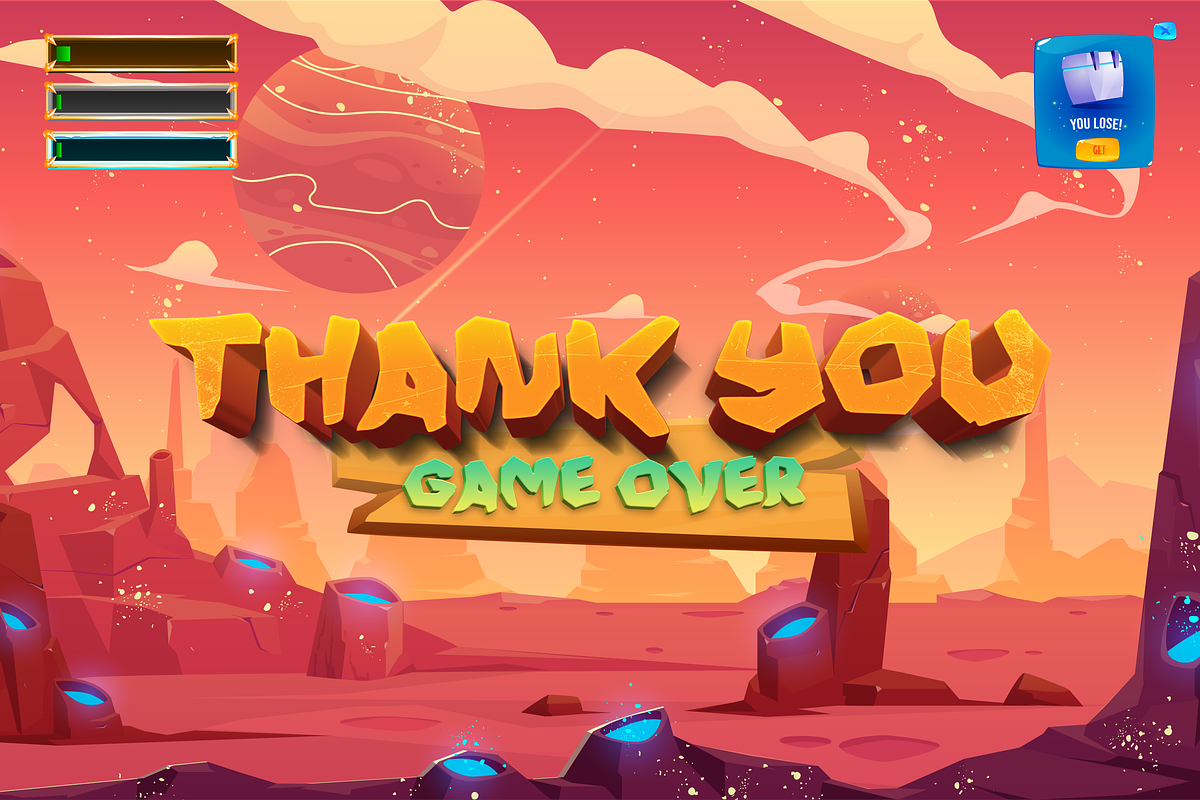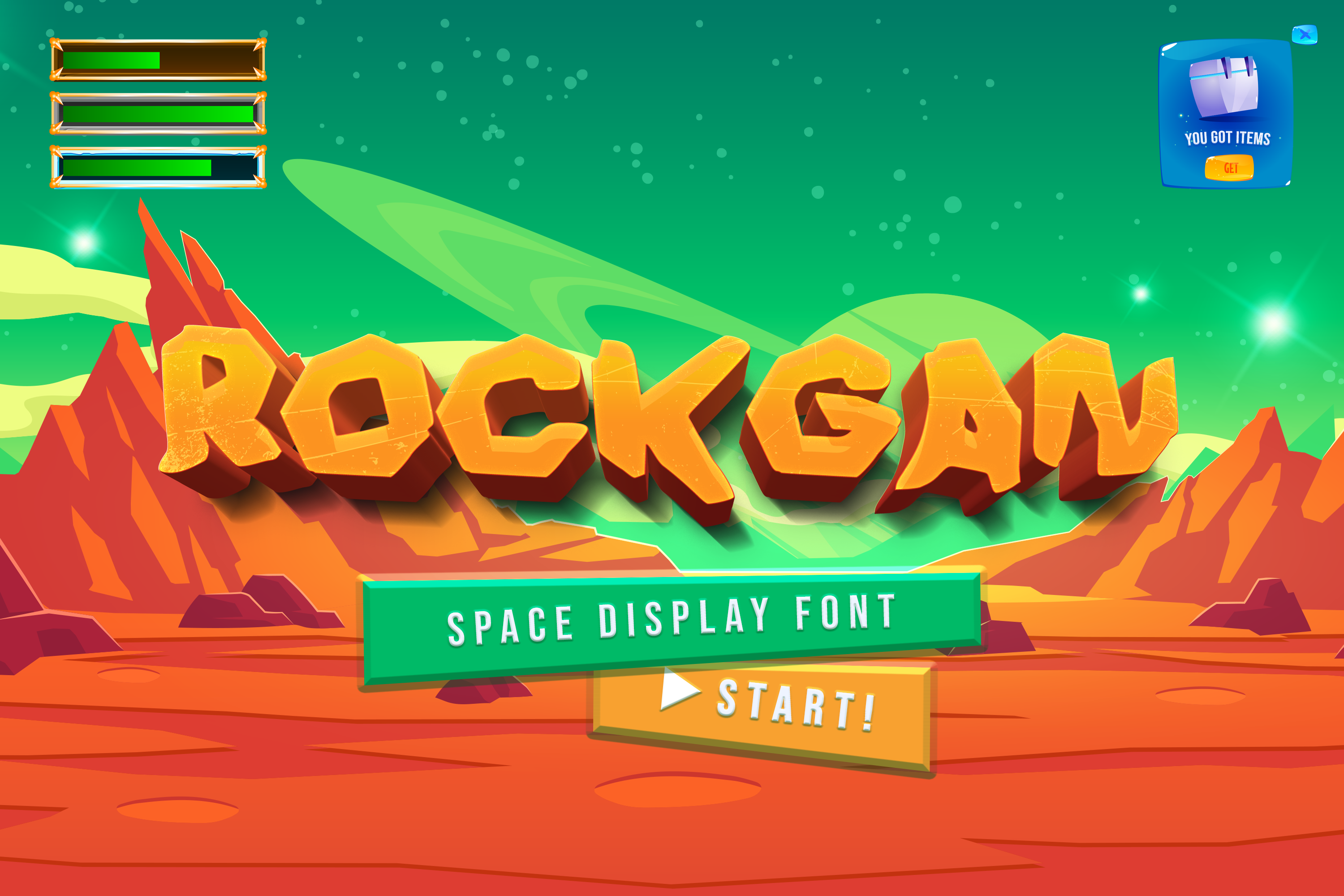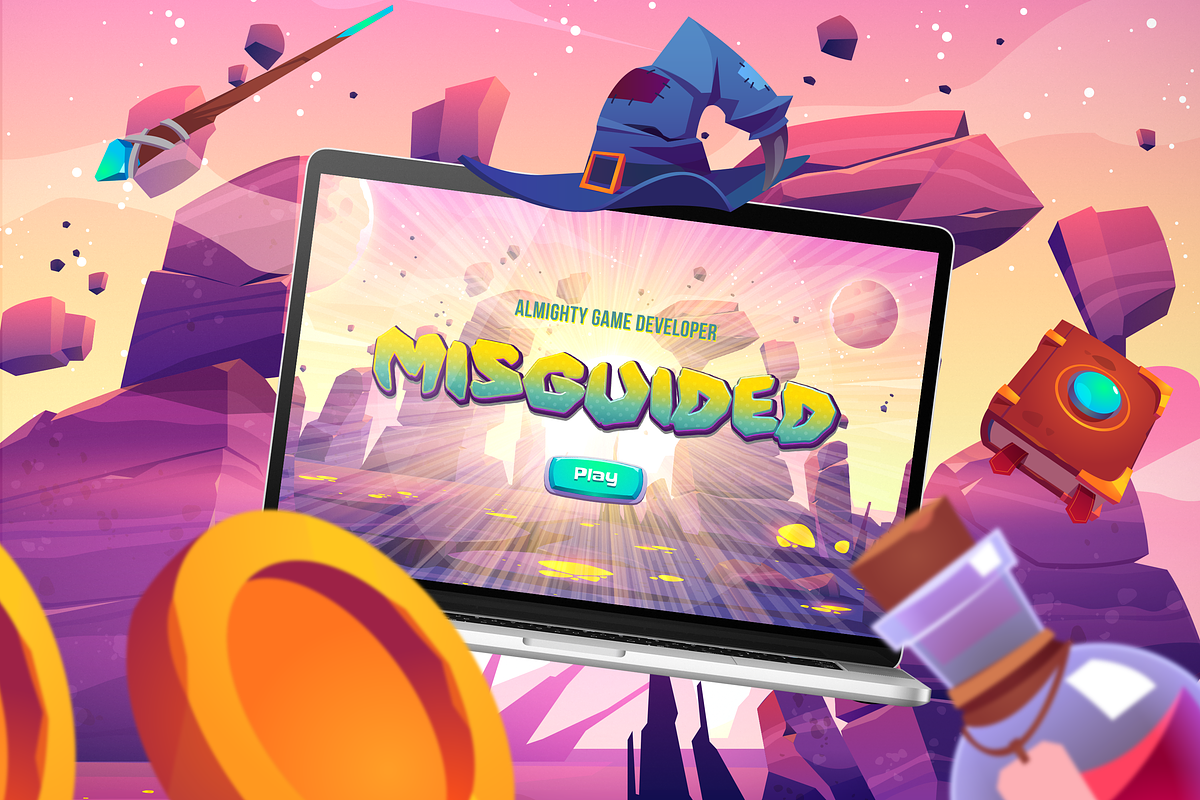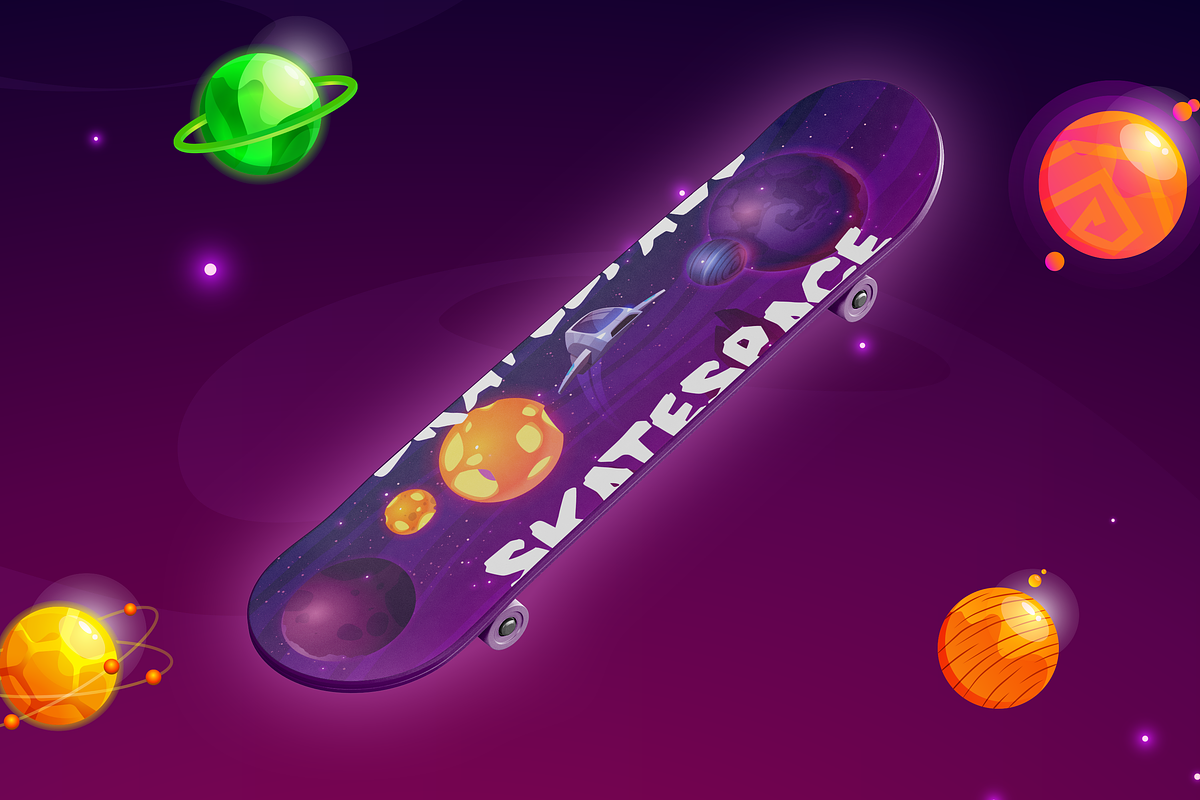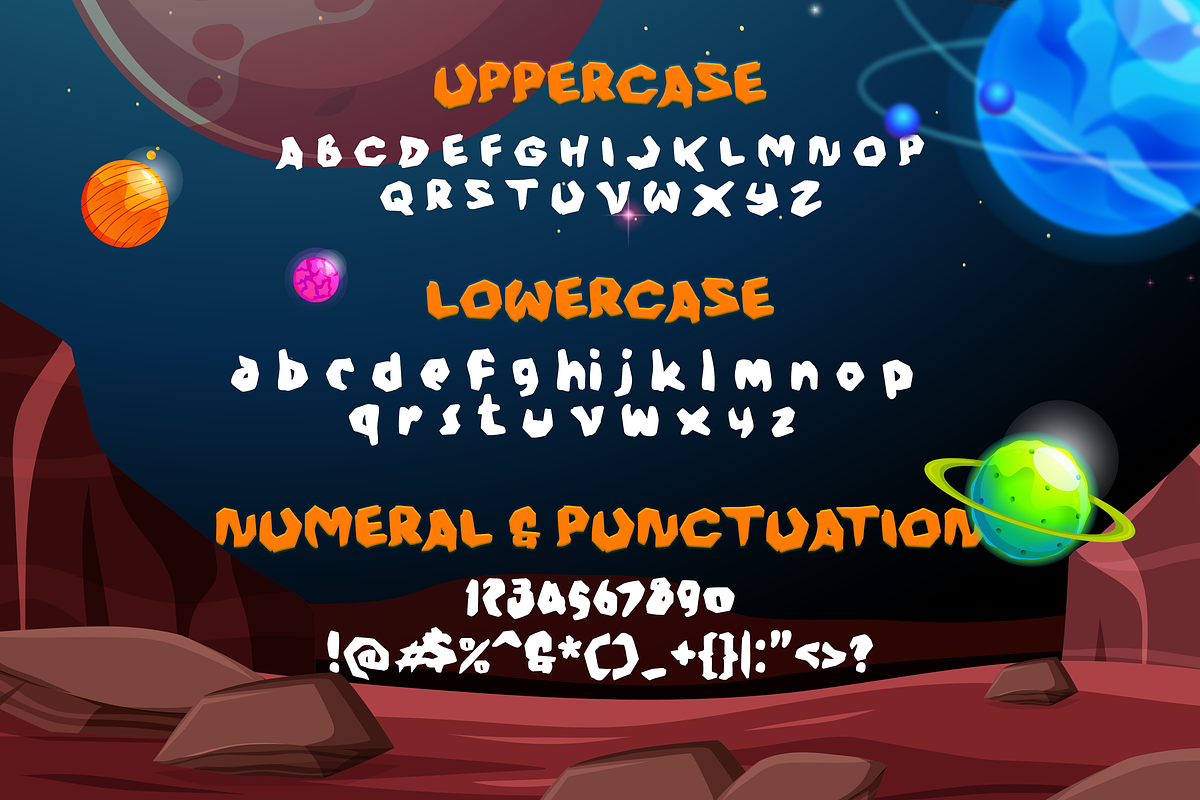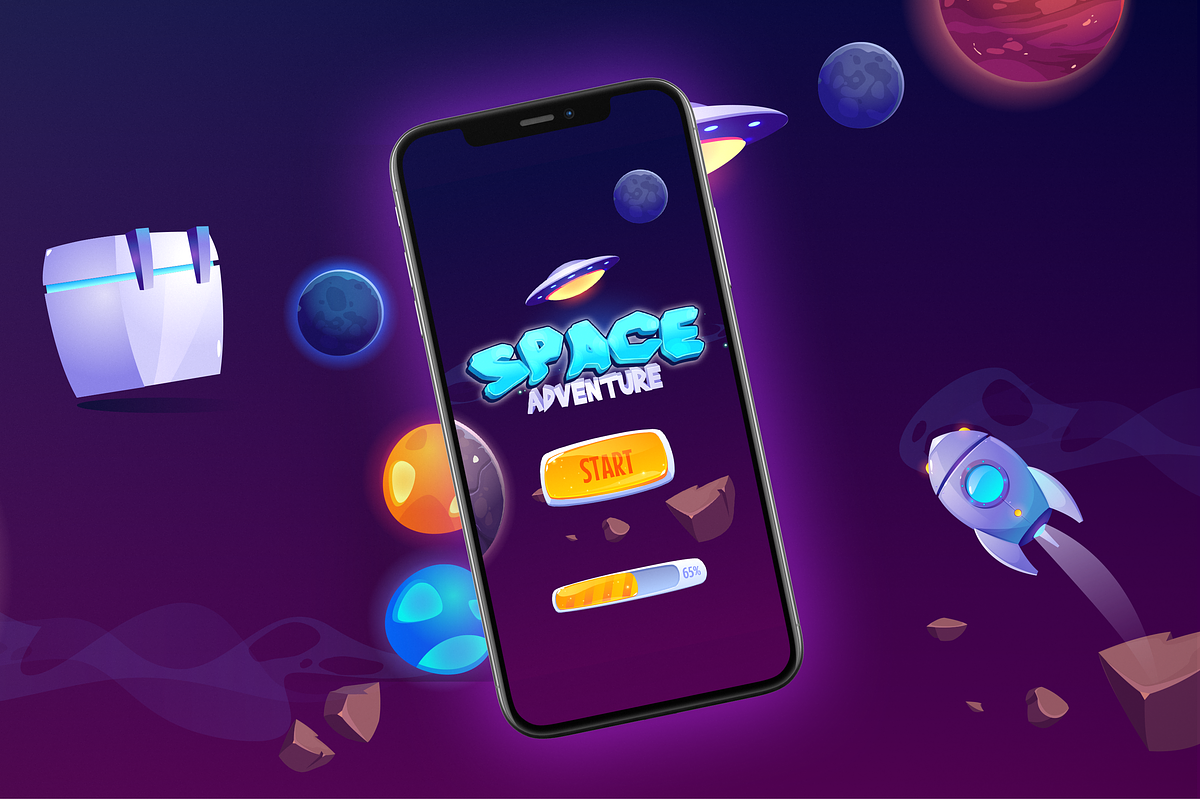
Rockgan Space Display Font
Rockgan Space Display Font, is our new font and suitable for mockup or any work.
Great for Sticker, Invitation Card, Brochure, etc.